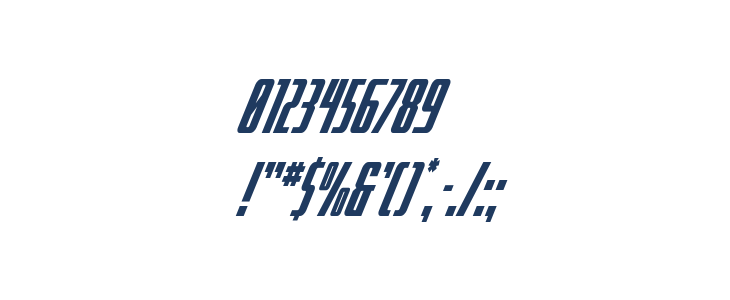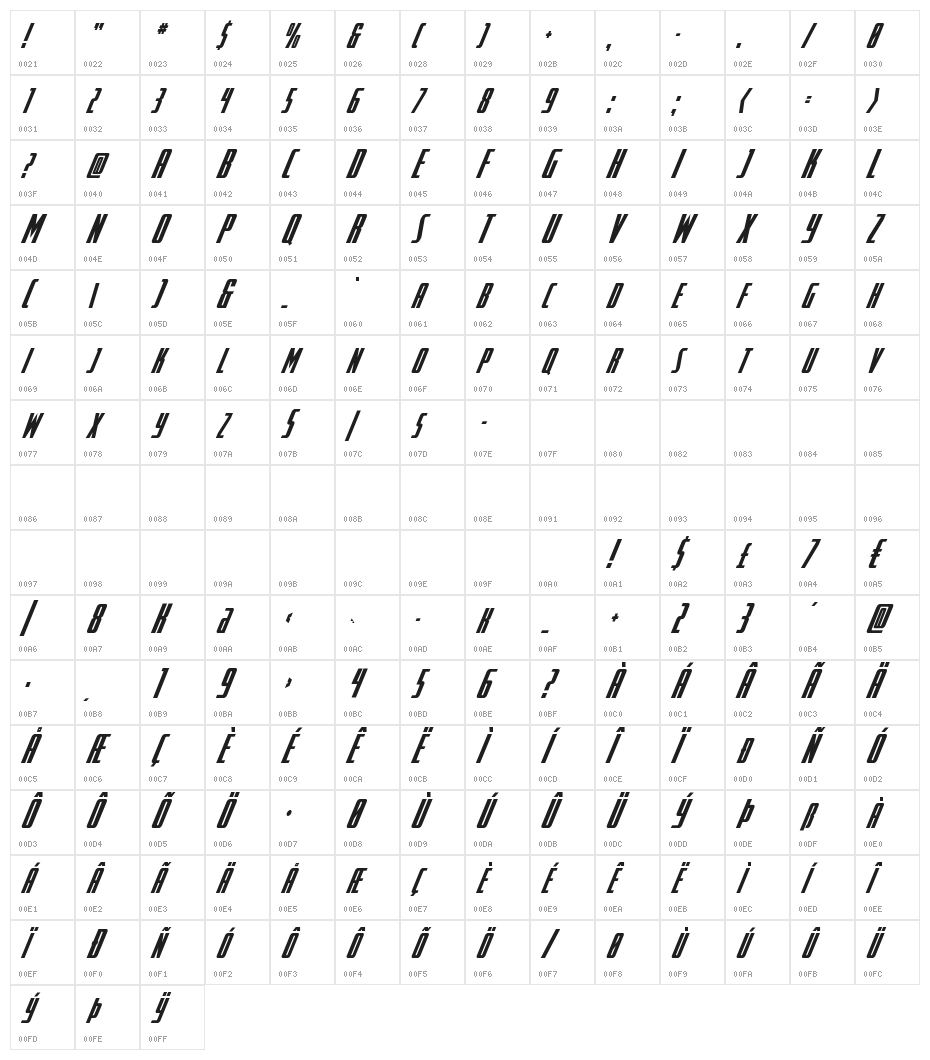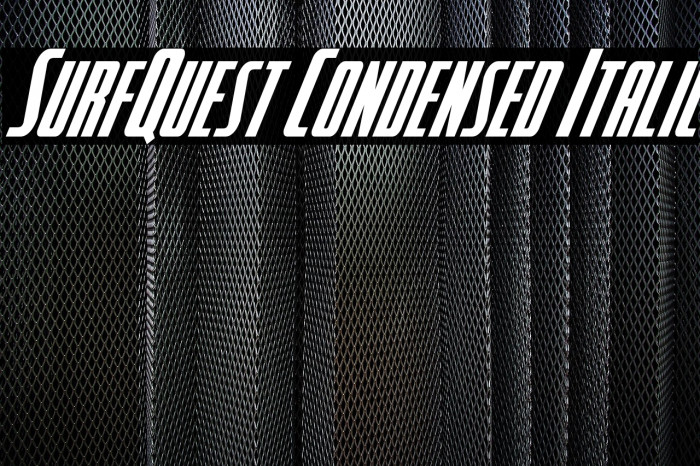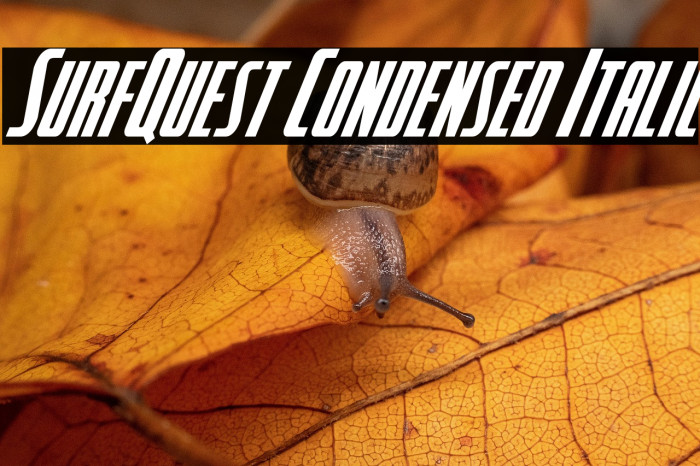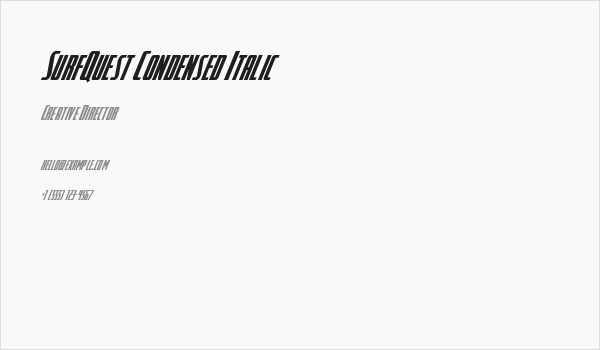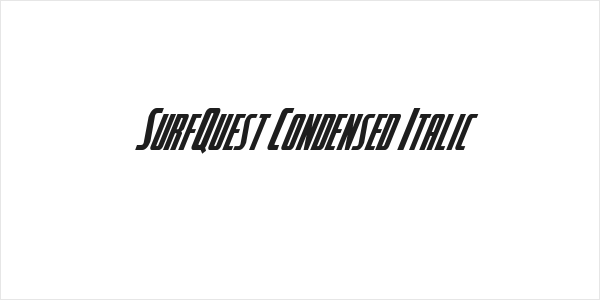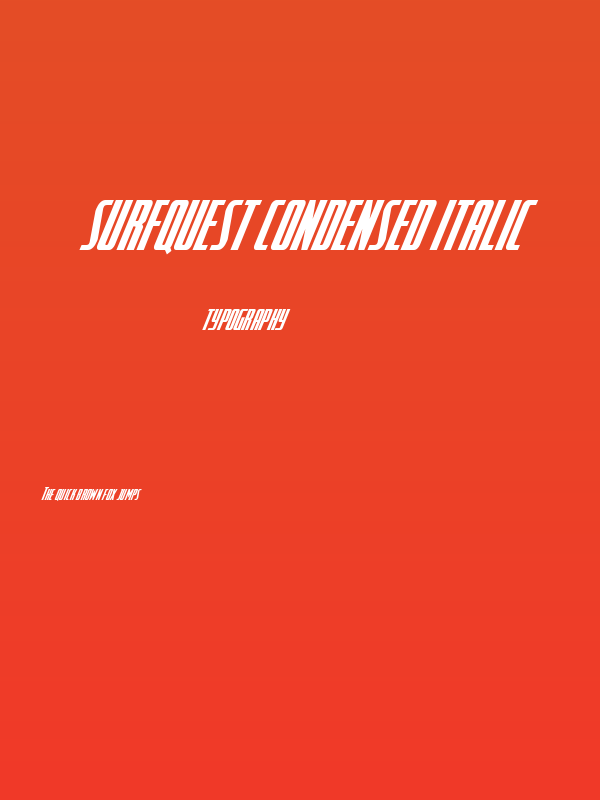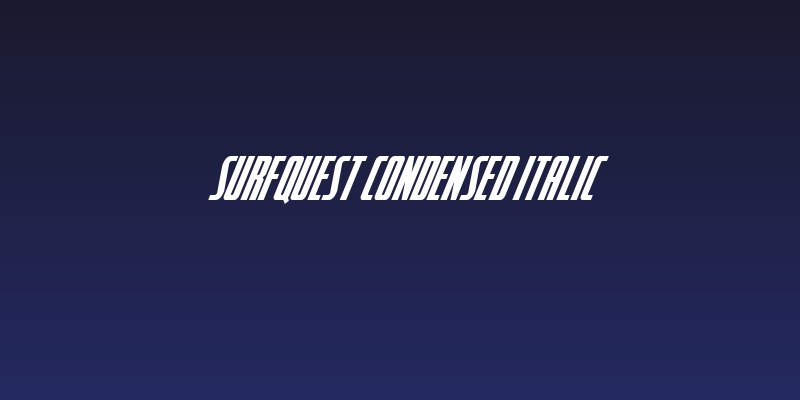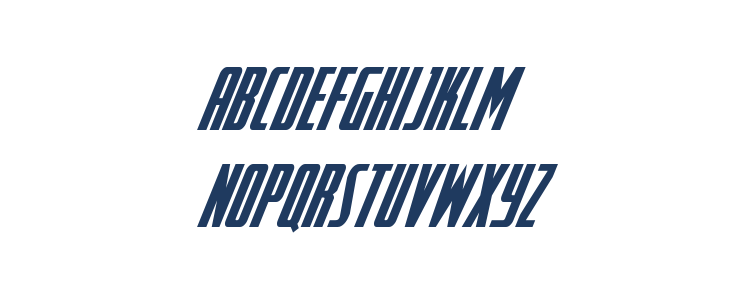
SurfQuest Condensed Italic Font
SurfQuest Condensed Italic Description
This font features a dynamic and energetic design with a condensed and italicized style. The characters are sharply angled, giving a sense of movement and speed. The uppercase and lowercase letters maintain a consistent slant, enhancing the italic effect. The numbers and special characters follow the same design principles, ensuring uniformity across all glyphs. The font's boldness and condensed width make it ideal for impactful headlines and attention-grabbing designs. Its modern and sporty appearance is perfect for projects that require a sense of urgency or excitement.
| Proposed Projects | Ideal for sports branding, dynamic posters, event promotions, and modern advertising campaigns. |